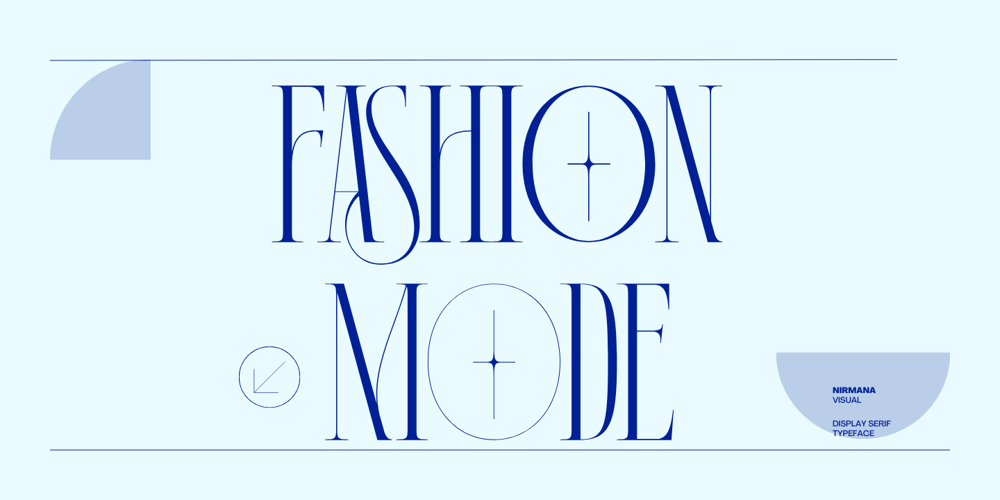
Fashion Mode
Fashion Mode font
Fashion Mode Font Family was designed by Sigit Dwipa and published by Nirmana Visual. Fashion Mode contains 1 styles and family package options. Inspired by Fashion magazine adverts from the 70’sand 80’s.modern and minimal look, Fashion Mode Font brings a luxurious and clean style to websites, modern logos, branding identity, social media quotes, wedding stationery, and whatever your heart dreams up!